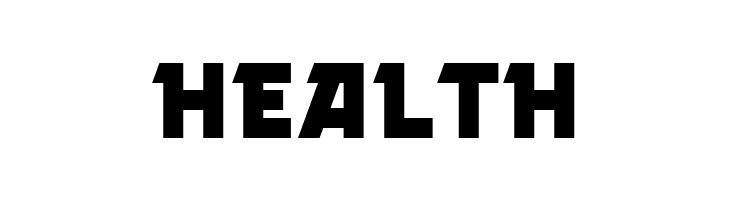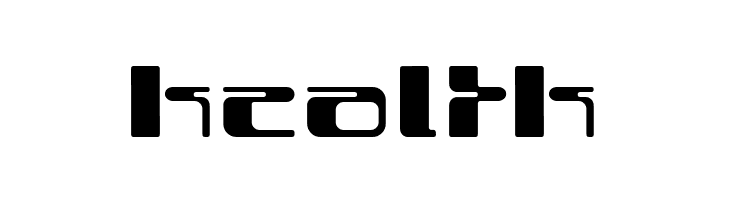
A bold, condensed font with irregular, organic strokes and a playful, artistic style.
A bold, italicized, and condensed font with dynamic and edgy characteristics.
A bold, hand-drawn style font with irregular, energetic strokes and expanded width.
A bold, italicized font with dynamic strokes and a striking appearance.
A bold, dynamic font with thick strokes and an italic slant, ideal for expressive designs.
A bold, dynamic font with a graffiti-inspired style.
A bold, hand-drawn font with an artistic and dynamic style.
A bold, brush-style font with dynamic and energetic strokes.
Whimsical, illustrated font with mythical creatures in circles.
Ornate, illustrative font with mythological figures as glyphs.
Mythology-themed decorative font with illustrated characters.
A decorative font featuring detailed mythological and fantasy-themed illustrations.
Illustrative, mythological-themed display font with each character in a square frame.
A collection of mythological creature illustrations in place of traditional font characters.
Mythology-inspired decorative display font with illustrated characters.
Cartoonish, myth-themed illustrative font with unique character drawings.
A playful, hand-drawn script font with flowing curves and loops.
A bold, handwritten font with a lively and dynamic style.
Ornamental and decorative glyph set with intricate flourishes and motifs.
A tall, narrow font with a vintage style and elegant curves.
A playful, bold font with rounded, bubbly characters and an organic feel.
A bold serif font with strong strokes and prominent serifs, ideal for impactful text.
A light, elegant serif font with thin strokes and subtle serifs.
A symbolic font featuring NASA and space exploration icons.
A modern, geometric font with a sleek and futuristic design.
Playful, animal-themed decorative font with circular anteater motifs.
A bold, playful font with rounded and sharp edges, offering a distinctive and eye-catching appearance.
A whimsical and spooky horror-themed decorative font.
A bold, distressed font with a gritty, urban aesthetic.
A bold, distressed font with a grunge aesthetic and chaotic appearance.
A serif font with a blend of classic and modern elements, offering elegance and functionality.
A whimsical and artistic font with decorative loops and swirls.